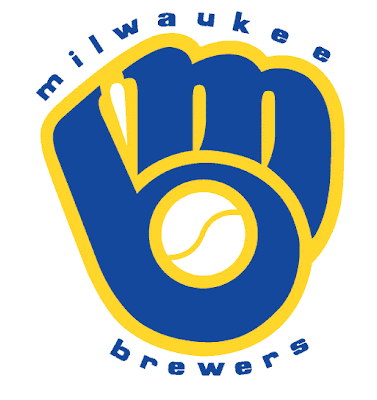
The next set of the logos I choose are from this Graphic Design blog. They are all just simple and fun, but have great concepts behind them.
I think the Brewer's logo is so creative and cool. I am not really a sports fan, but I love this logo.